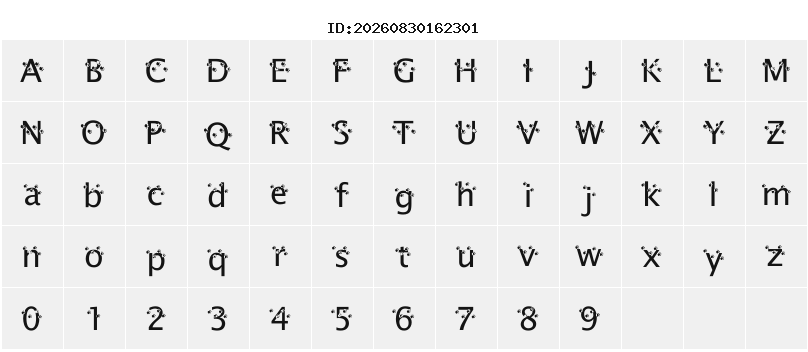
• Font Name: That Darn Cat!
• Full Font Name: Lucida Sans
About That Darn Cat!.ttf
That Darn Cat!.ttf is a modern, elegant sans-serif font designed for ultimate readability and visual harmony. Perfect for branding, headlines, web design, and print materials.